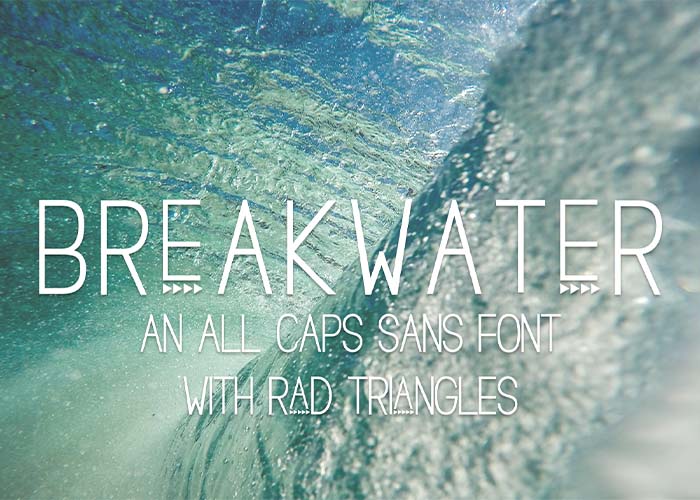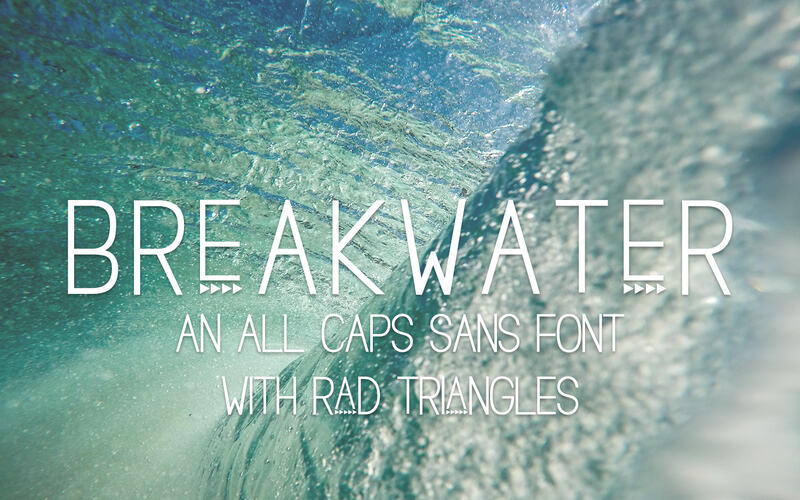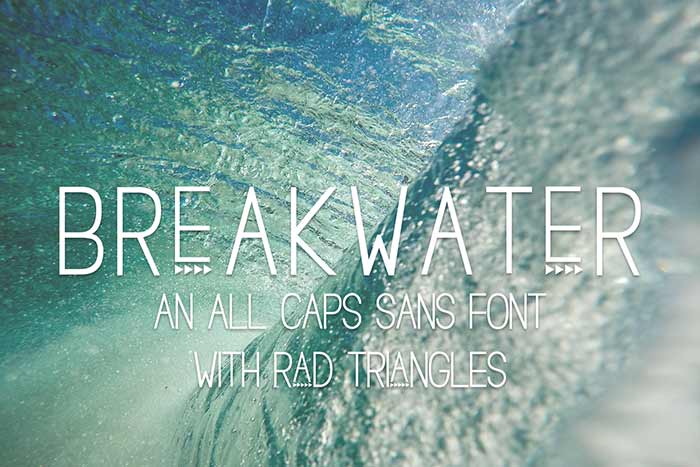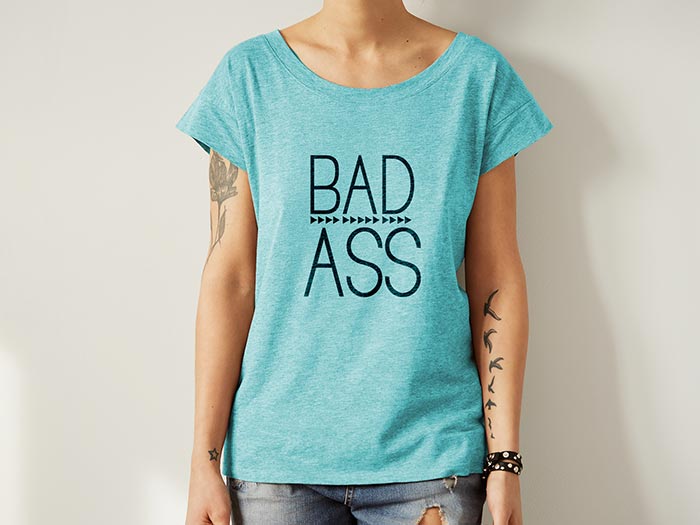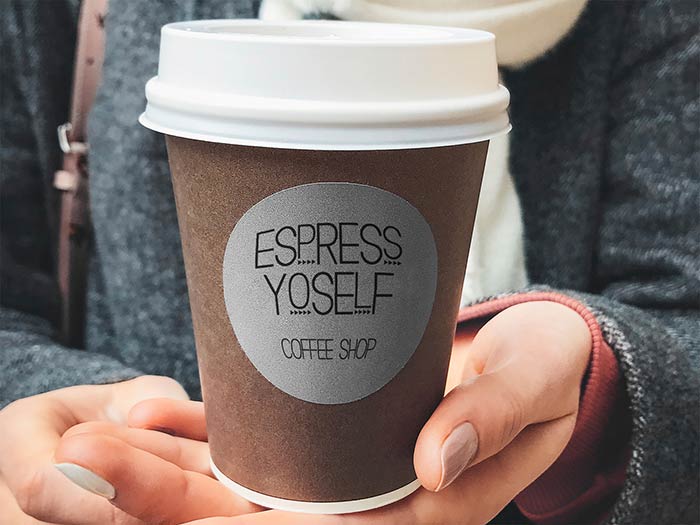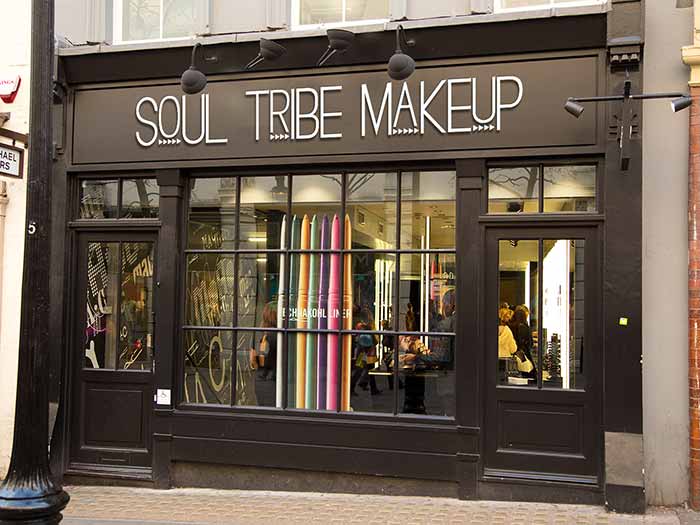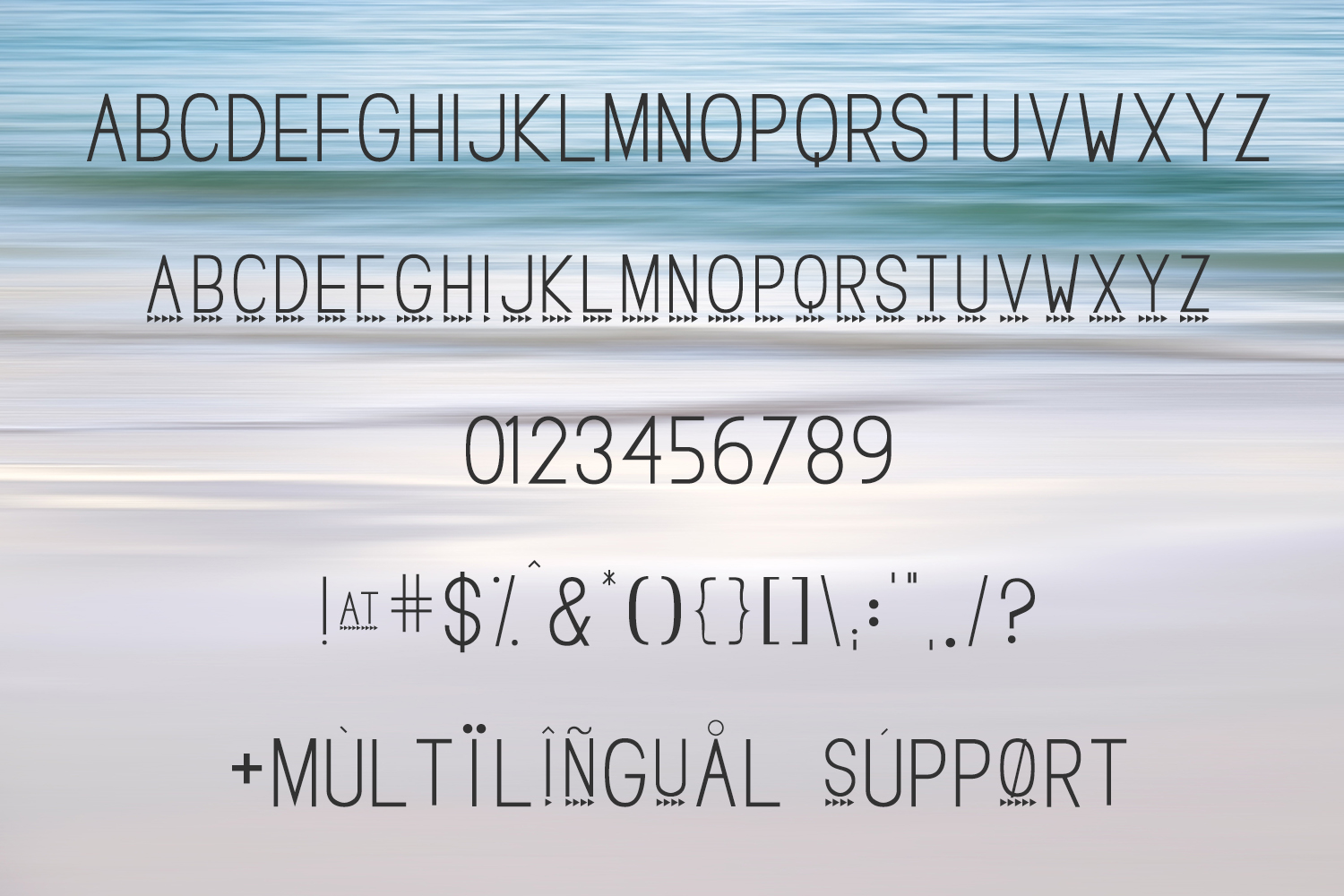
Free Breakwater Triangle Sans Font
Breakwater, an all-caps sans commercial use font with rad triangle details. Type in a combo of capital & lowercase to add a little extra flair to your next project — perfect for branding, posters + ads, menus, & more.
Breakwater includes Western European language support.